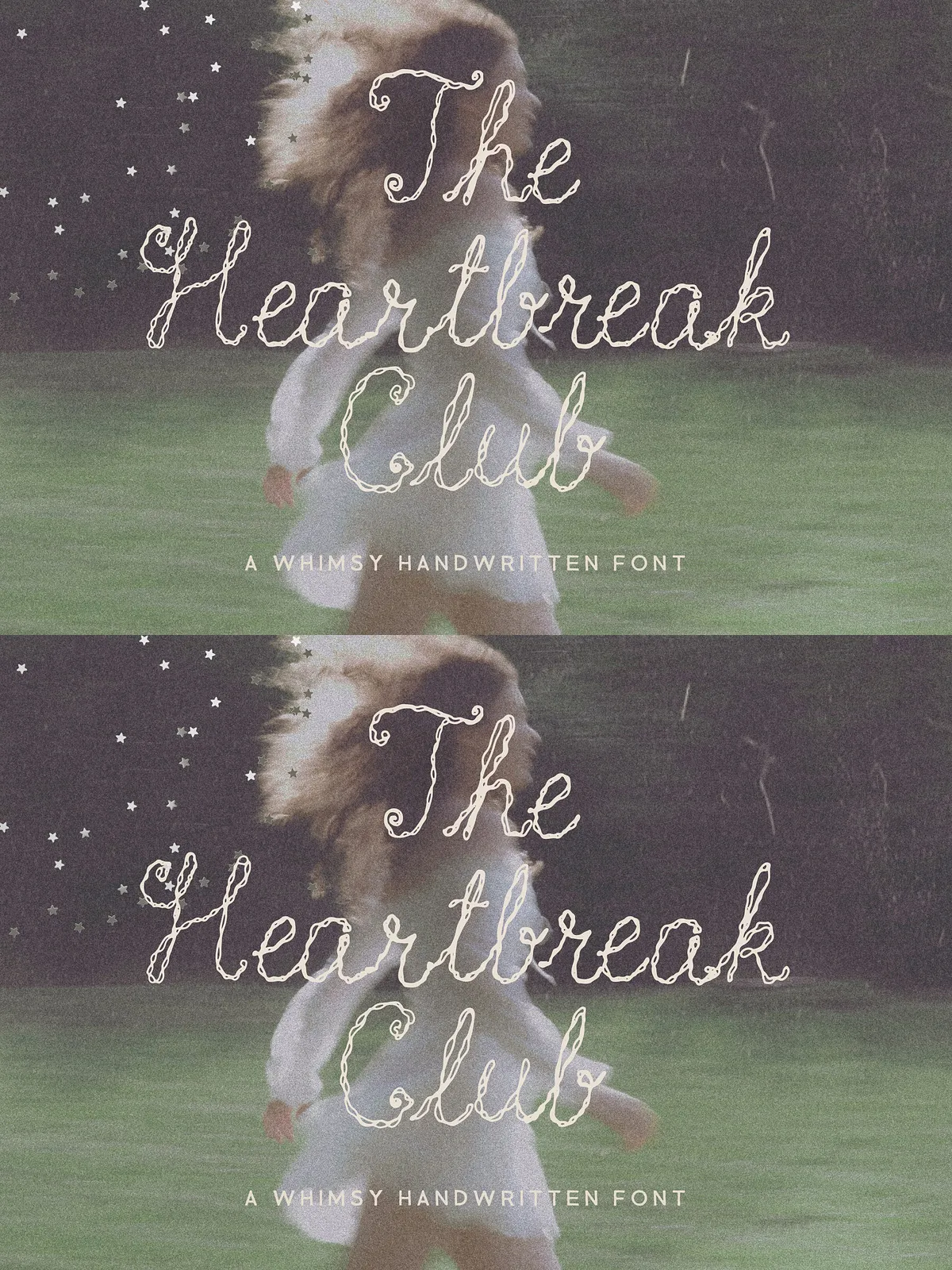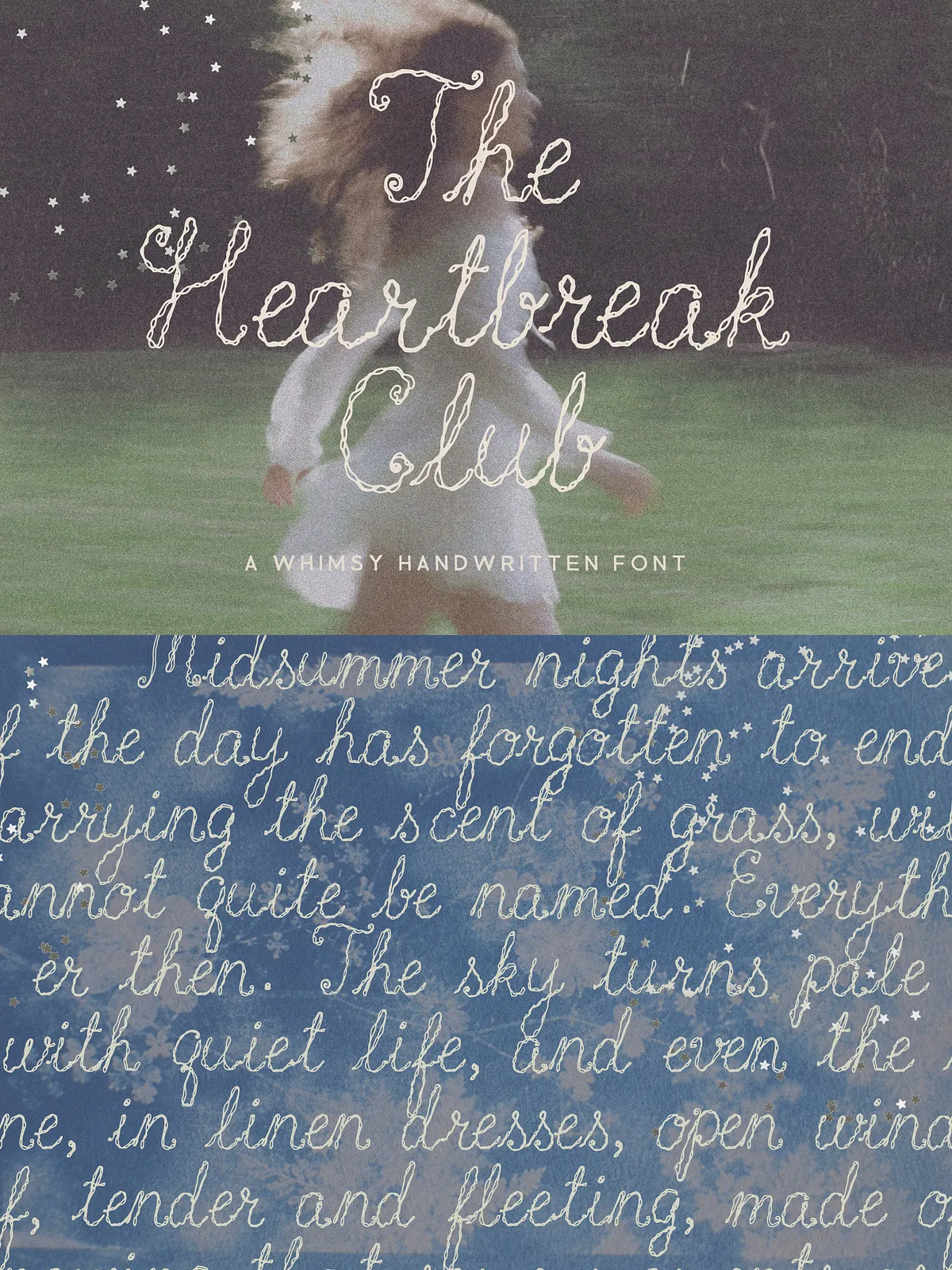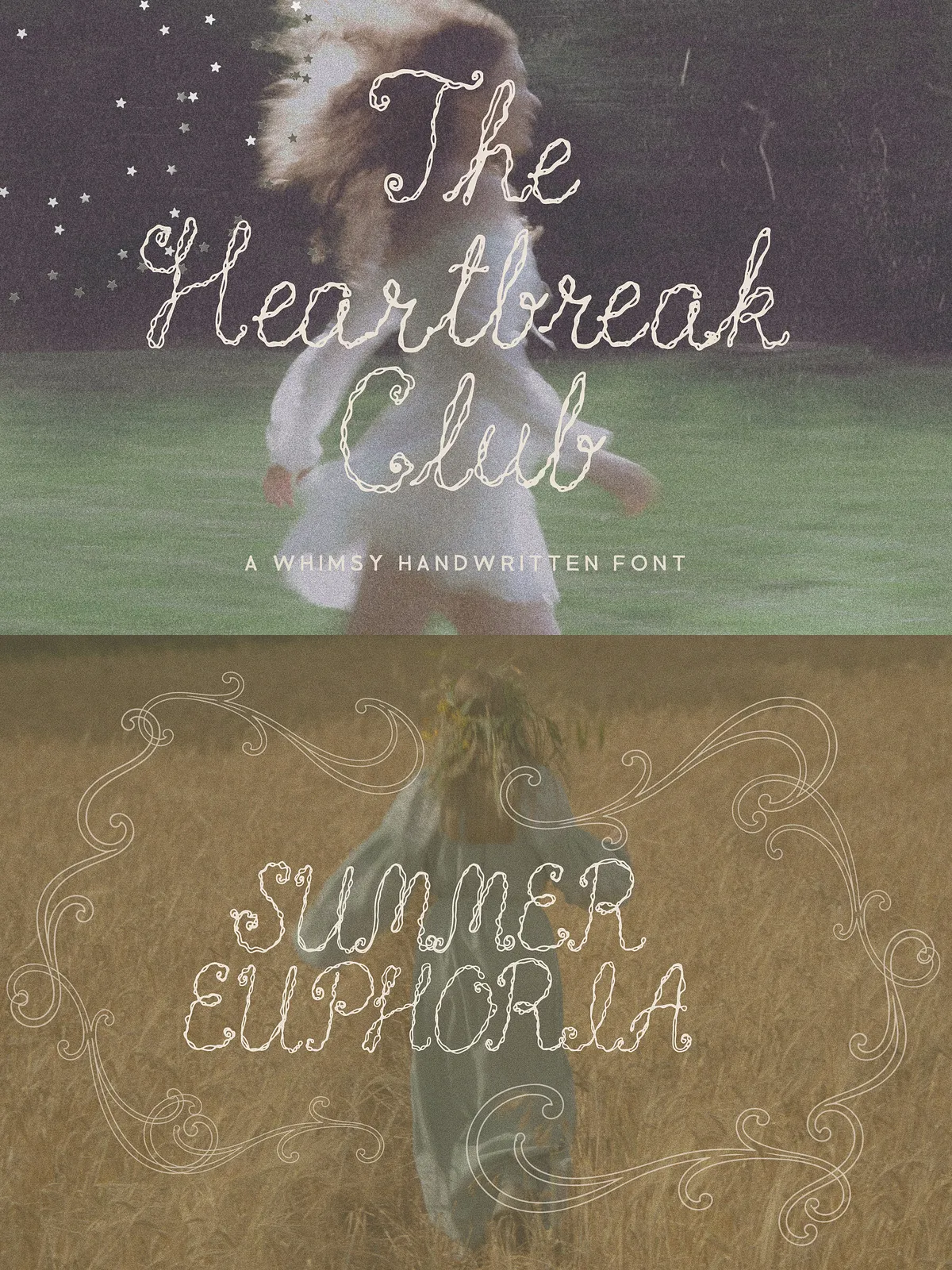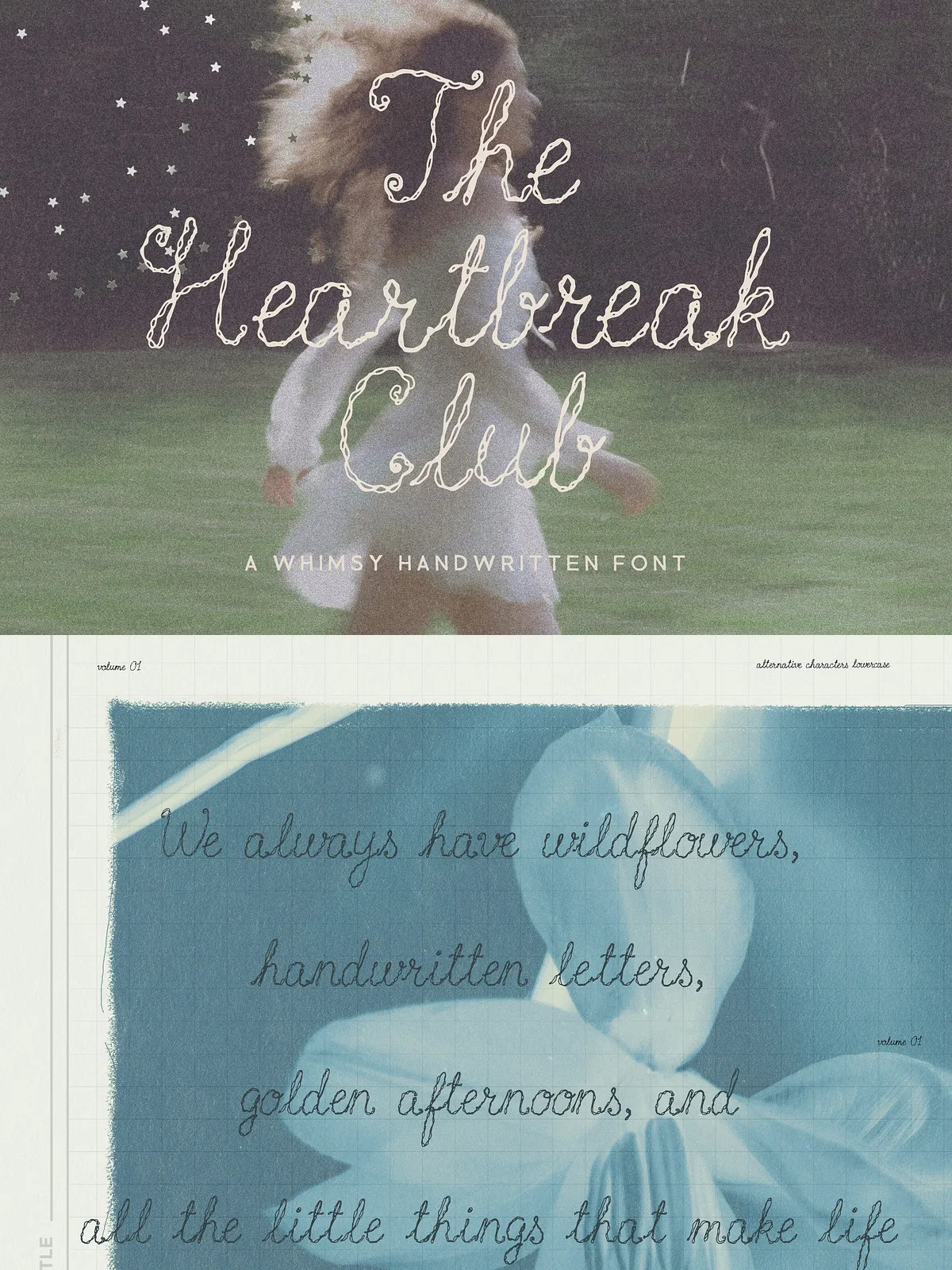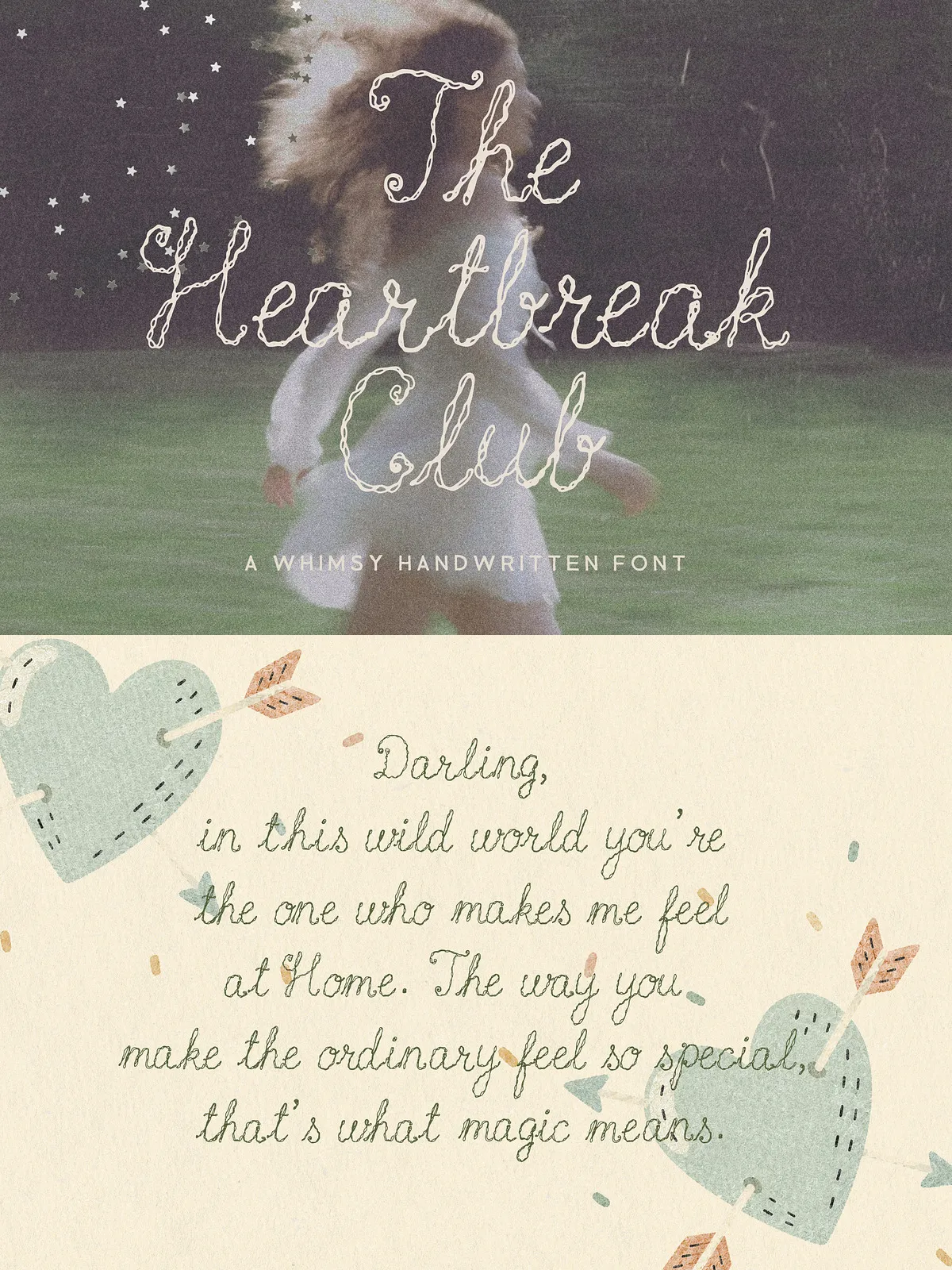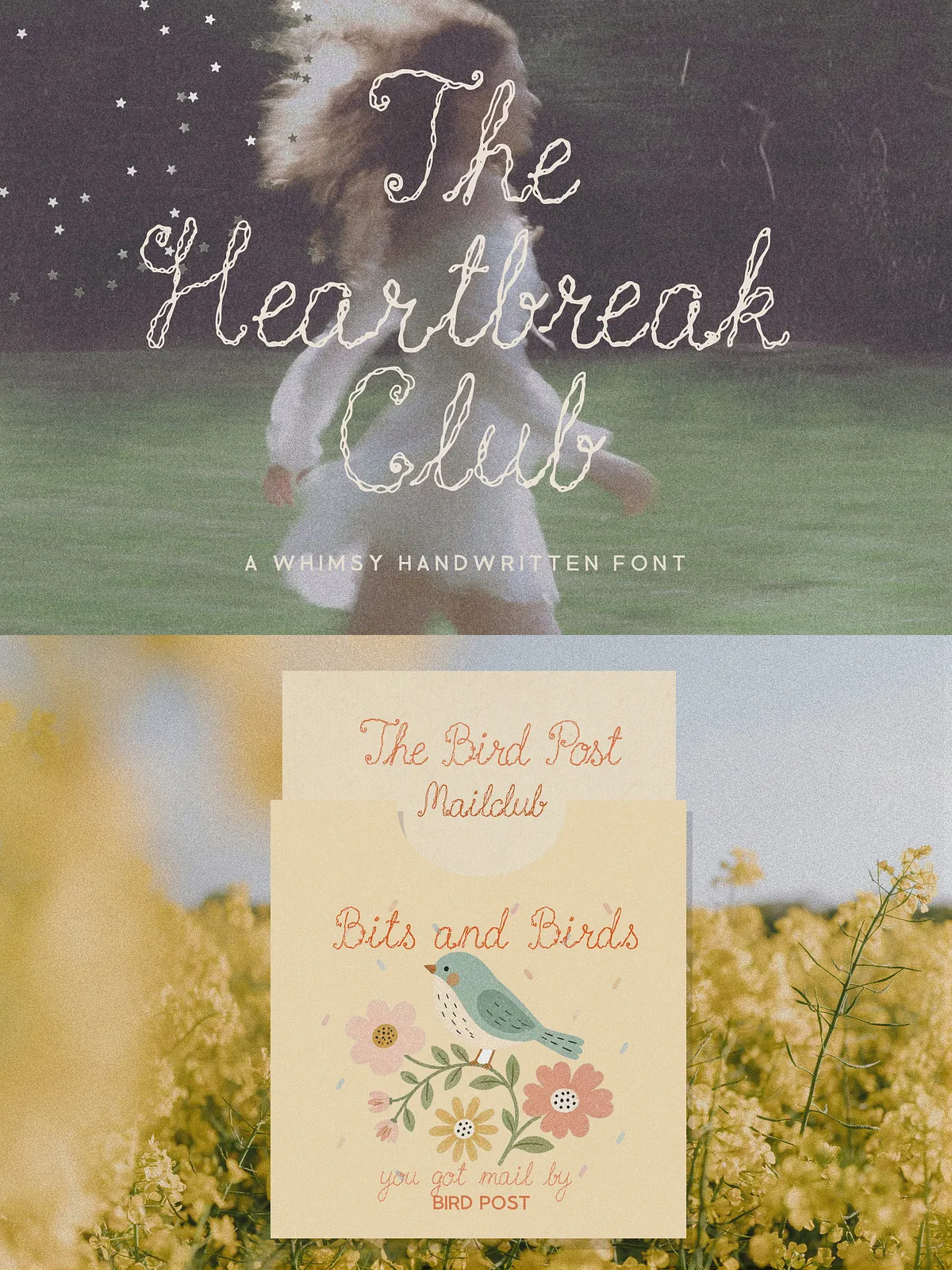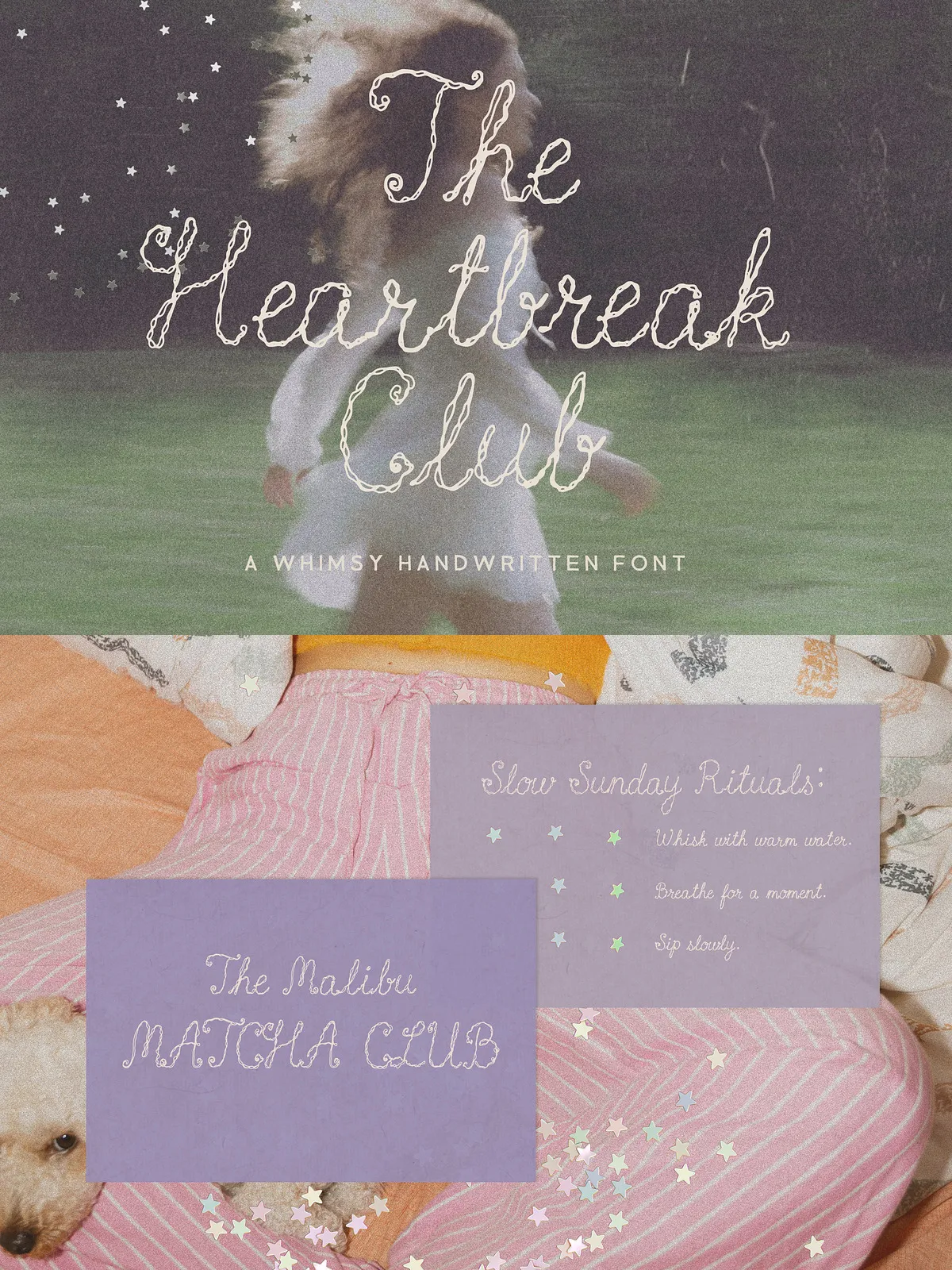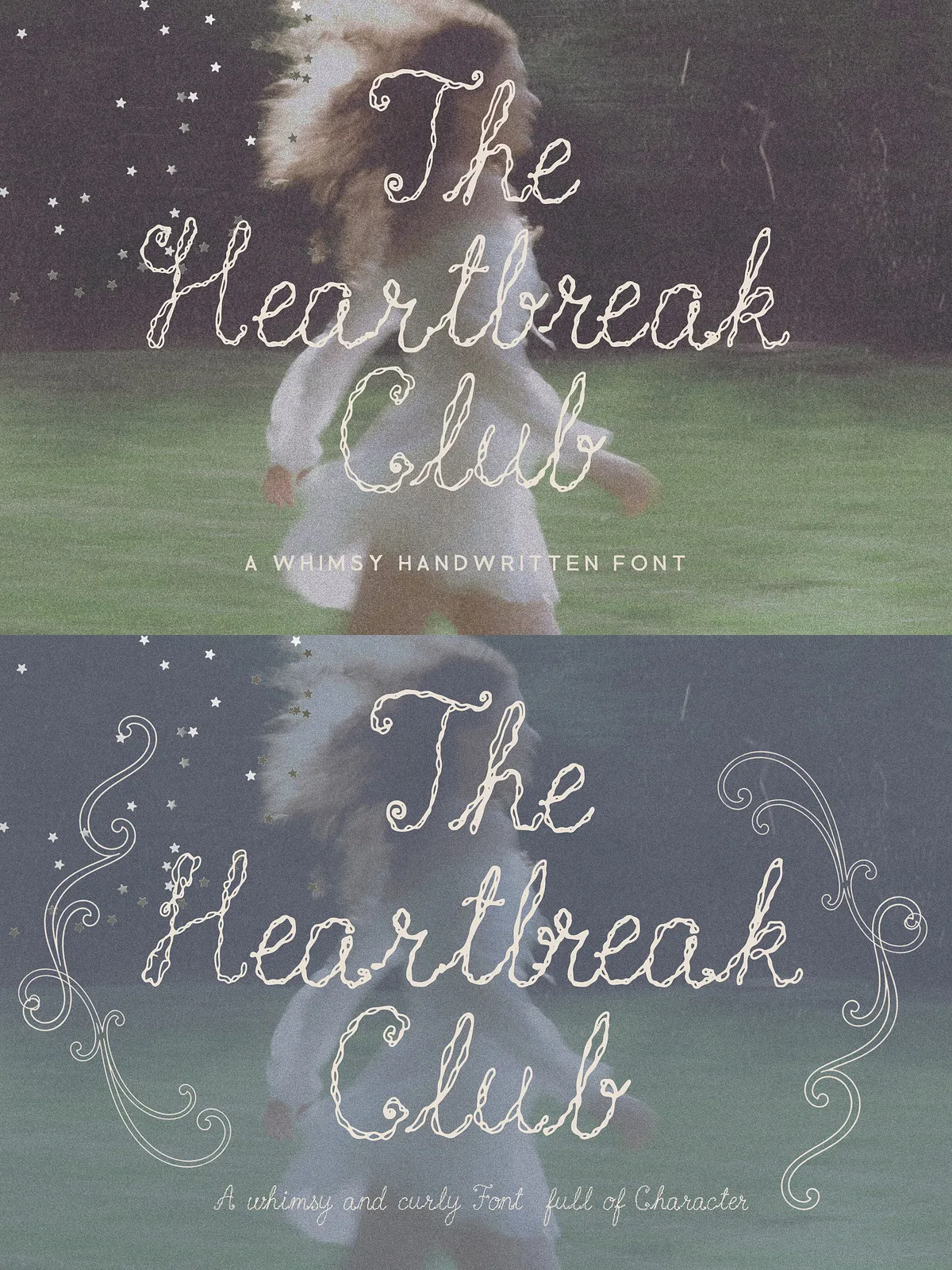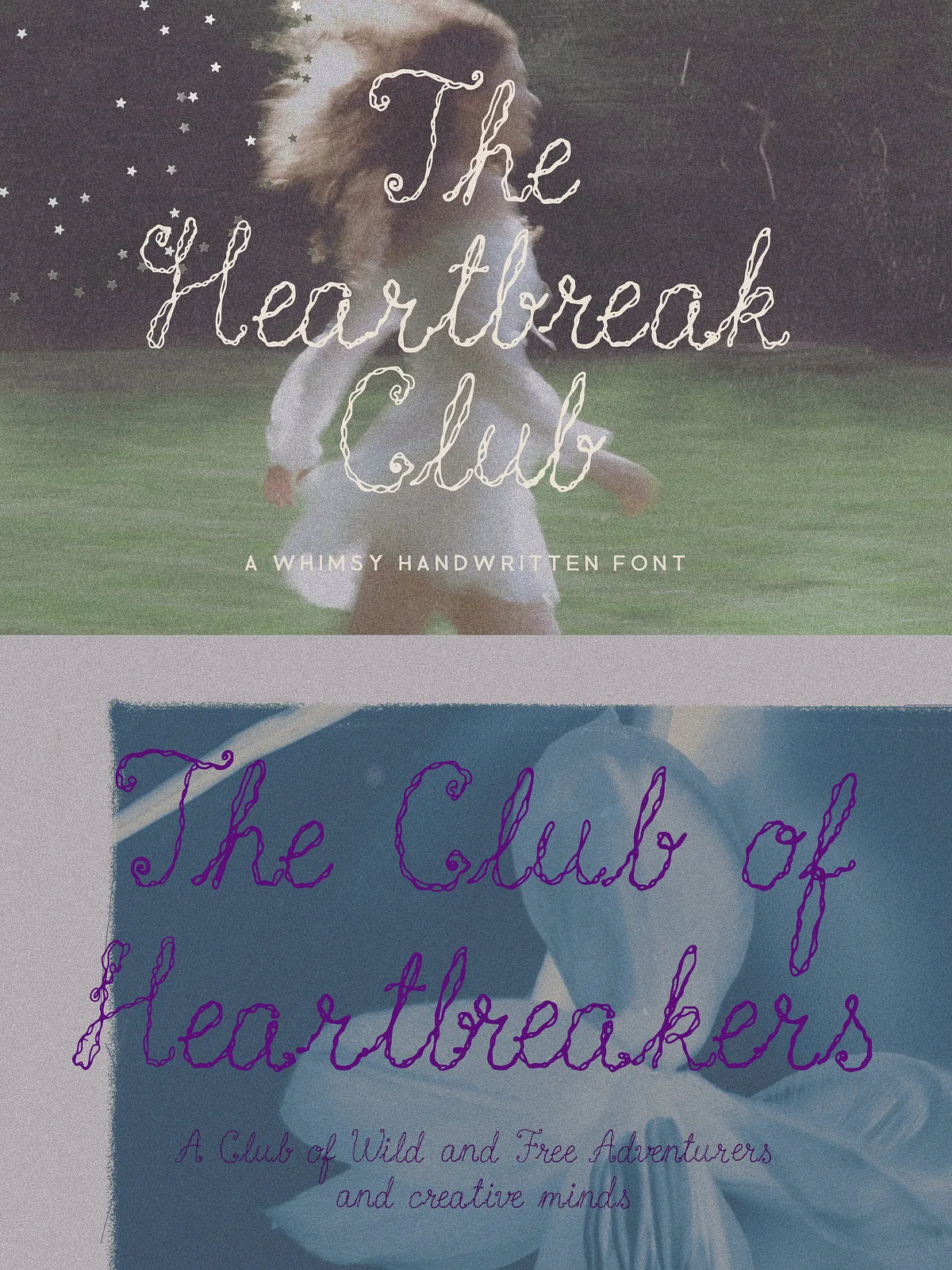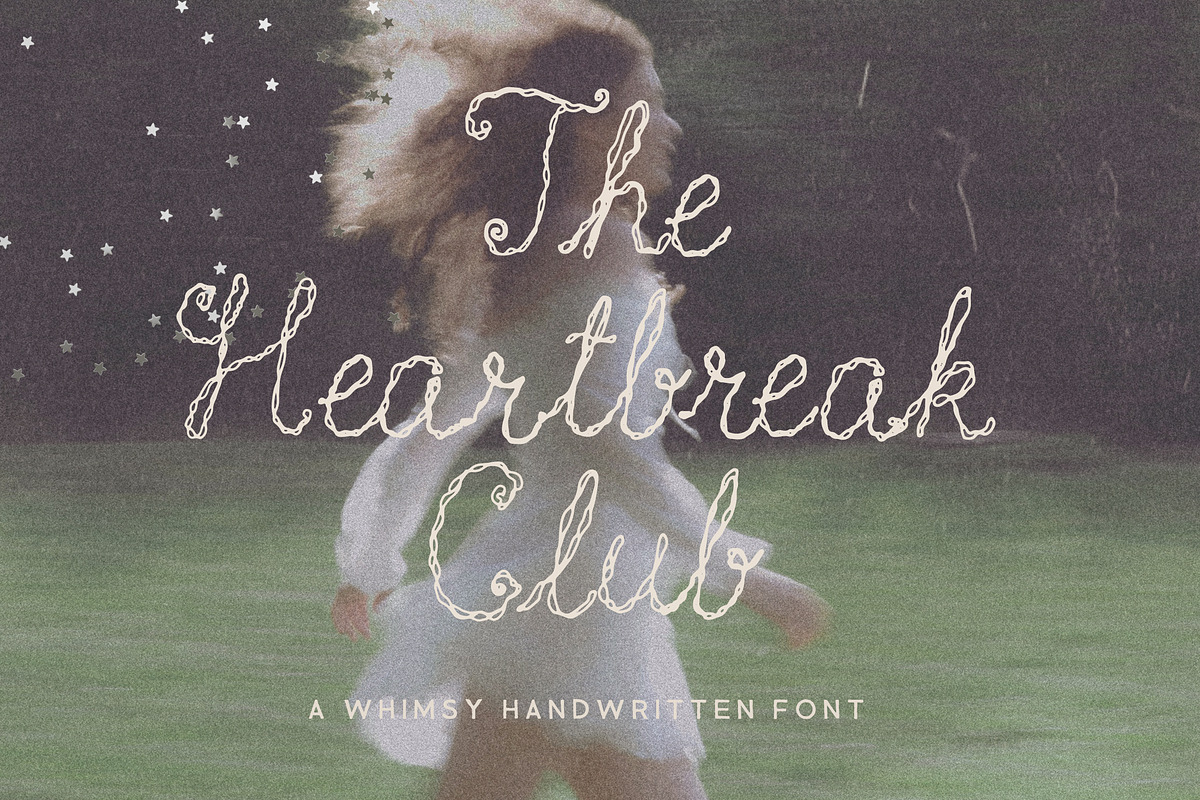
HeartbreakClub adds a soft, handcrafted touch to your design projects with its whimsical curly forms and thread-like texture. Each character carries gentle swirls and slight imperfections that read as authentic, warm, and artisanal. This decorative textured font blends playful personality with refined legibility, making it perfect for projects that require a personal, handcrafted voice without compromising professional quality.
Distinctive Handmade Character
HeartbreakClub emphasizes organic, hand-drawn details: curled terminals, subtle loops, and a stitched-inspired texture that suggests embroidery or sewn paper. These attributes create visual interest at display sizes while still maintaining clarity for short headlines, logos, and labels.
Versatile Decorative Use
The font performs beautifully across a wide range of applications. Use it to convey warmth and personality on wedding invitations, romantic branding, artisan packaging, children’s products, craft projects, greeting cards, social graphics, logos, quote designs, stickers, and stationery. HeartbreakClub works equally well for boutique product labels, handmade business identity, and social media visuals that need a charming, intimate tone.
Pairing Suggestions
Combine HeartbreakClub with a clean sans-serif or a minimal serif to balance its ornamentation. Use the decorative font for logos, headlines, and accents while letting a neutral body font handle longer paragraphs. For a romantic brand, pair with a soft serif; for playful packaging, pair with a bold rounded sans.